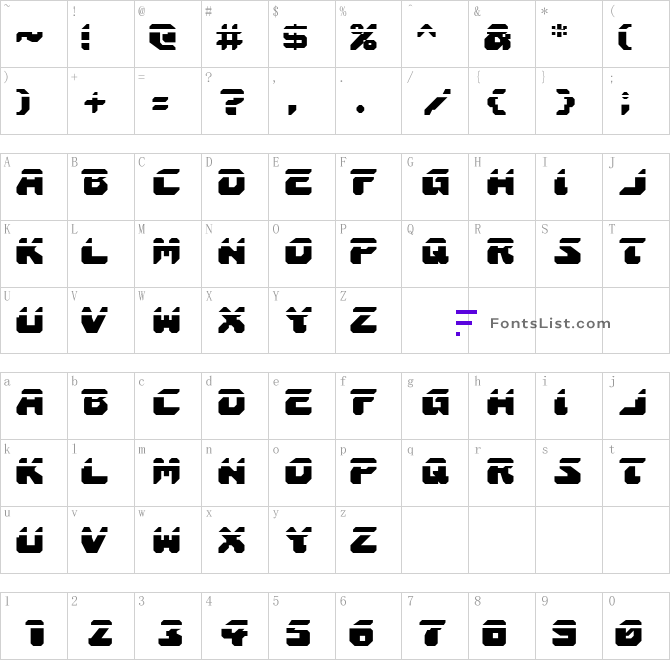
- Font Name:Astropolis Laser
Astropolis-Laser.ttf is a very beautiful artistic font, Astropolis-Laser.ttf is widely used in the design and printing of various books and pictures,Astropolis-Laser.ttf has a strong visual impact,Astropolis-Laser.ttf is a commonly used font in newspapers, magazines and books, and is used in posters, e-commerce Poster design, store design, logo design, font design and other fields.Astropolis-Laser.